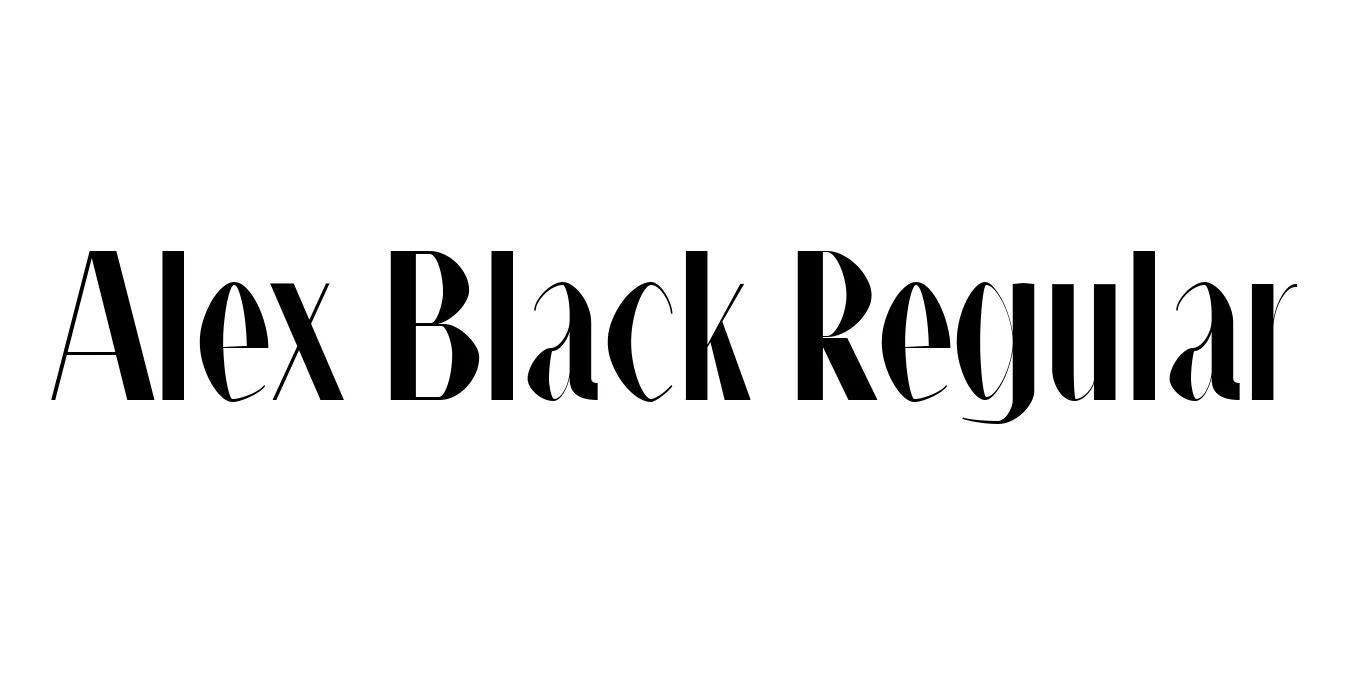
Alex Black Regular
Designed by Rob Leuschke
| Font Name | Alex Black |
| Category | Display Serif |
| Designer | Rob Leuschke |
| Similar Fonts | Playfair Display Black, Bodoni, Didot, Poster Bodoni |
Alex Black Regular is a sophisticated and high-impact display typeface characterized by its bold strokes and elegant high-contrast design. Crafted to provide a sense of authority and luxury, the font features a unique blend of traditional serif structure and modern geometric precision. This combination ensures that every character stands out with clarity, making it a premier choice for designers who need to bridge the gap between classic elegance and contemporary power.
The history of this typeface is rooted in the pursuit of a professional aesthetic that works across both digital and print mediums. Its robust weight and distinctive letterforms make it particularly effective for large-scale applications where legibility and personality are paramount. From editorial layouts to high-end branding, Alex Black Regular offers a versatile solution for creative professionals seeking a typeface that commands the room without sacrificing grace.
Alex Black Regular Best Uses
Excellent for high-impact titles and catching the viewer's attention instantly.
Perfect for creating strong, memorable corporate identities and logo marks.
Ideal for magazine covers and feature article headers that require a premium feel.
Provides an authoritative and clean look for modern website hero sections.